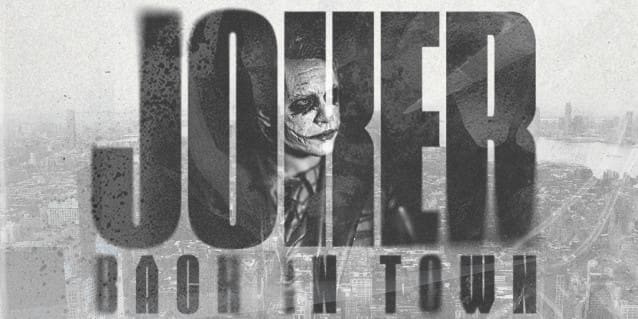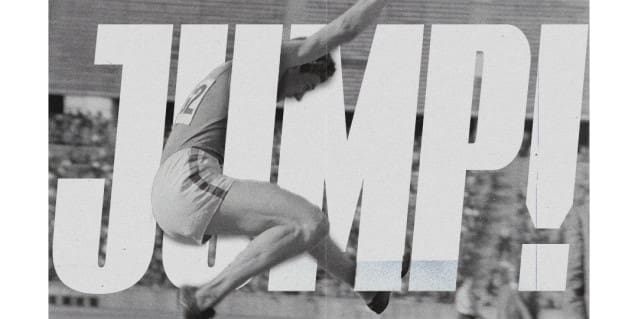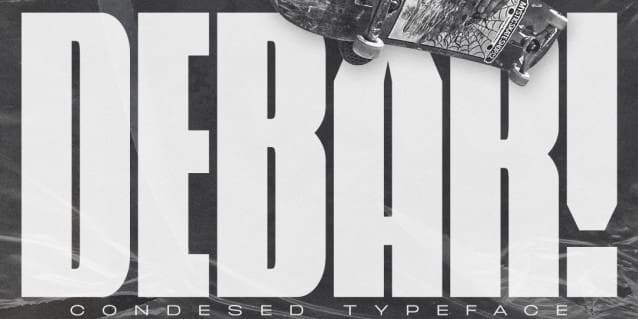
Debar Font
Debar Font, inspired by newspaper headlines, this sleek and sophisticated font turns heads with its bold strokes and clean lines that exude professionalism.
DebarFont is perfect for any project where you need a timeless design that’s innovative at the same time. It comes in two styles: regular and oblique, making it highly flexible to use across various themes.
With Debar Font at your fingertips, there are no limits to what you can achieve. Whether creating stunning logos or crafting captivating marketing materials, this versatile font will elevate every project to new heights of excellence.